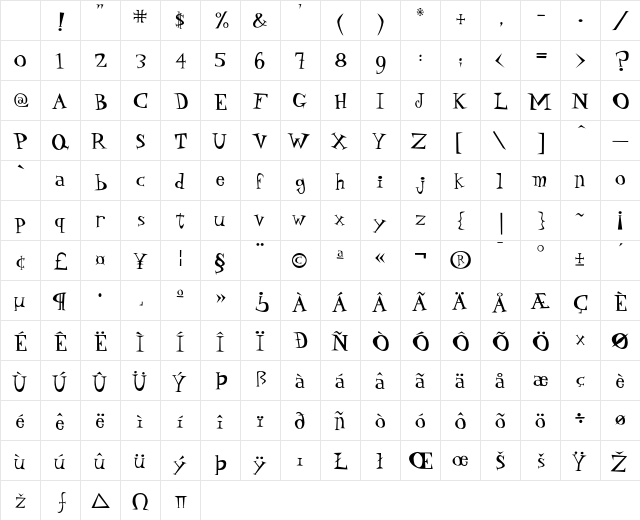
Complete DaddyO Hip glyph index. Displaying only characters natively supported by DaddyO Hip font.
DaddyO is a composed and adaptable typeface that performs quietly and consistently across a wide range of design contexts.